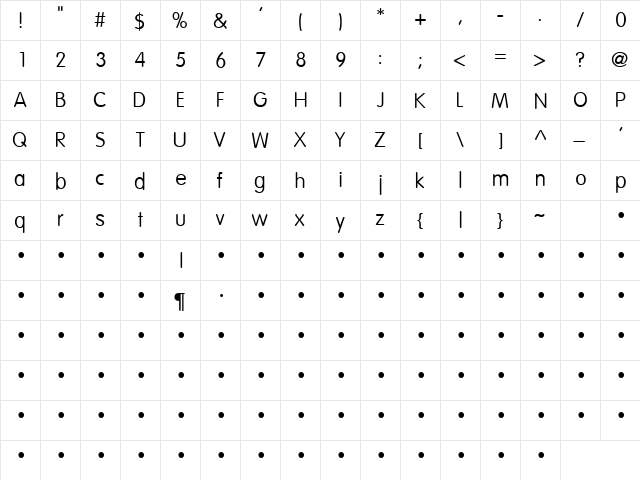
QTVagaRound Regular
Design Context for QTVagaRound Typeface
QTVagaRound softens its letterforms with rounded terminals, giving it an approachable, friendly quality that works well in consumer-facing and digital contexts.
Well-suited to UI design, mobile interfaces, and any brand that wants approachability without sacrificing clarity.
Font Pairing: Pairs well with a rounded or humanist sans for body copy, maintaining the friendly tone without relying on QTVagaRound to carry extended reading.
Pro Tip: Use QTVagaRound for UI elements, app interfaces, and anywhere a friendly, approachable tone needs to be maintained without sacrificing clarity.